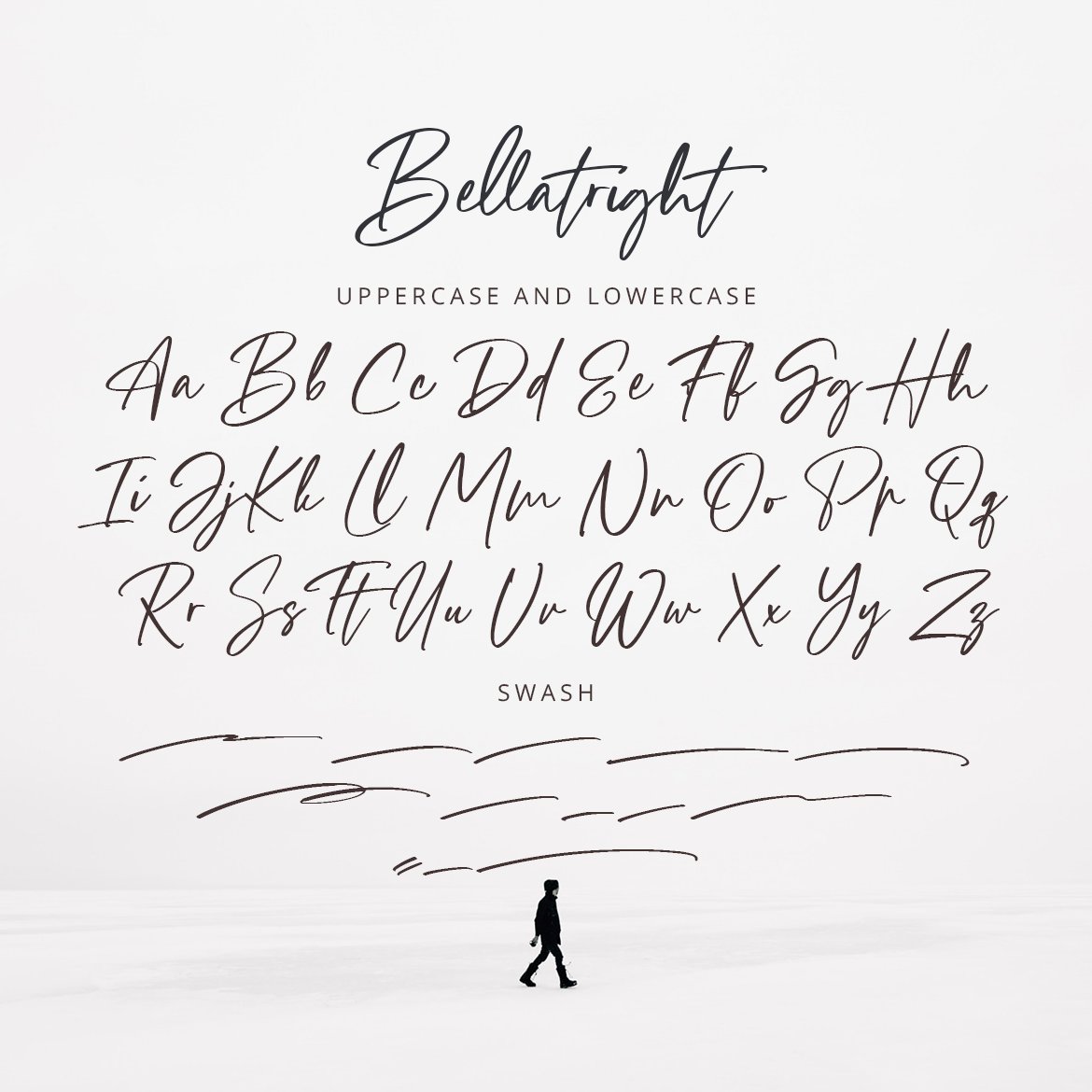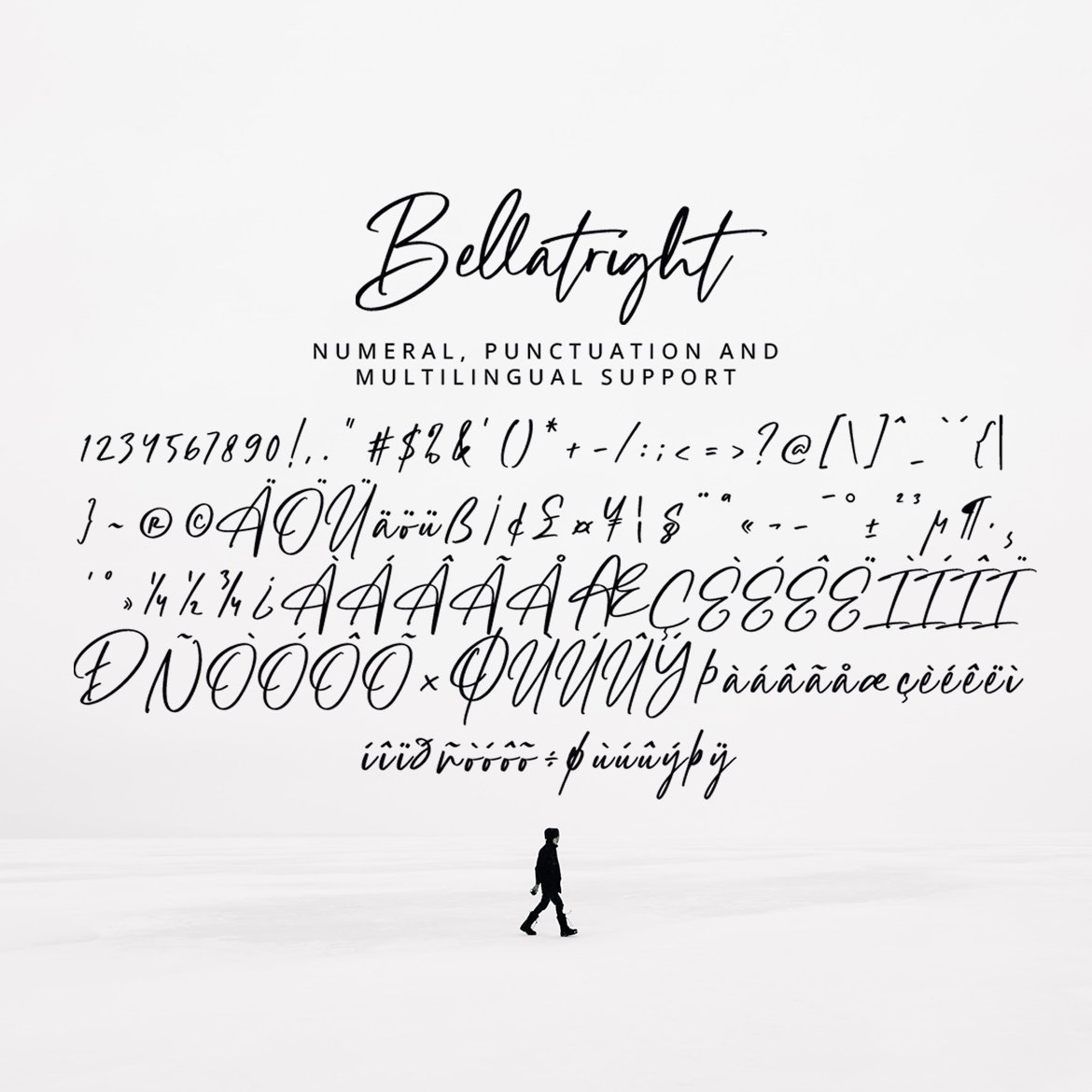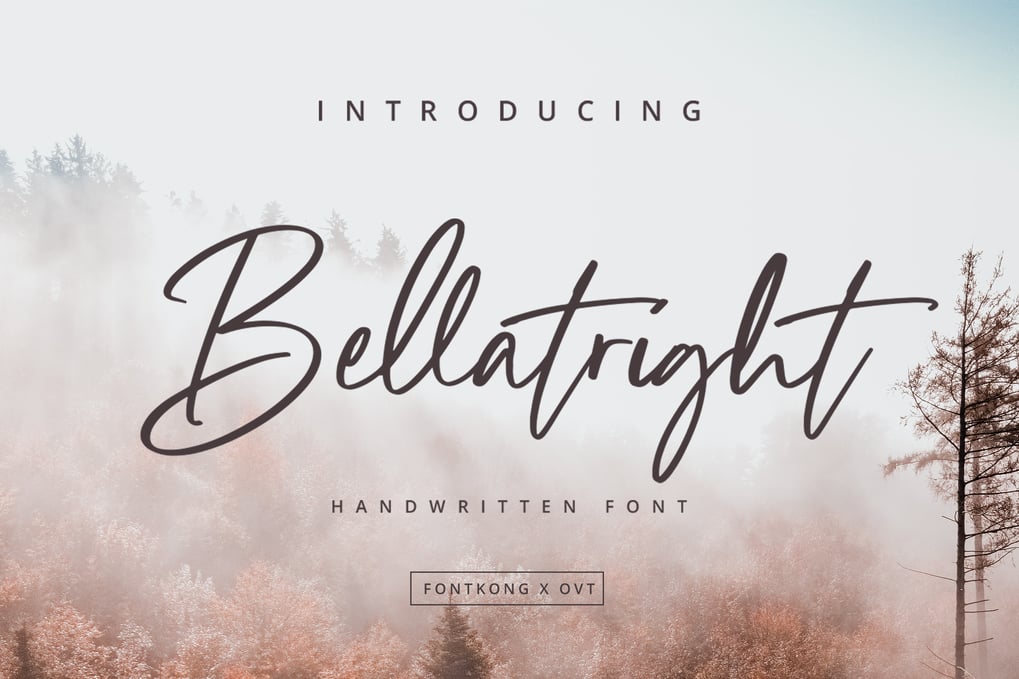
Bellatright – Handwritten Font
Introducing “Bellatright,” a handwritten font that brings elegant strokes and a personal touch to your design projects. Perfect for designers, wedding planners, and creatives seeking to add a touch of sophistication and warmth, Bellatright offers a beautifully crafted script that captures the essence of refined handwriting.